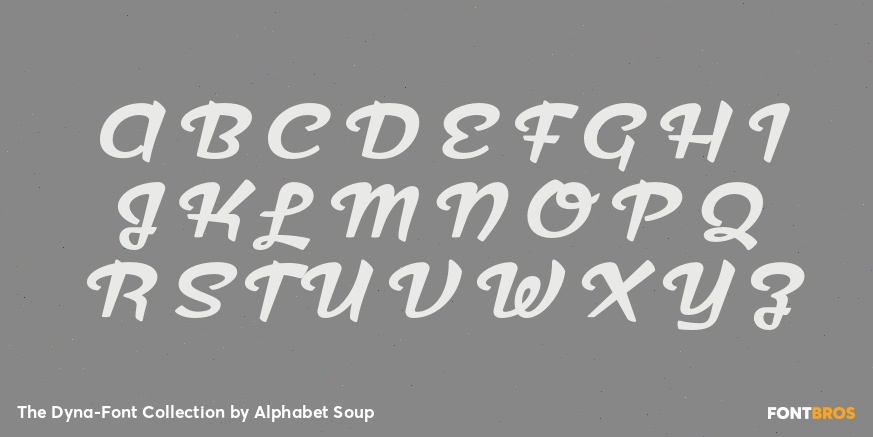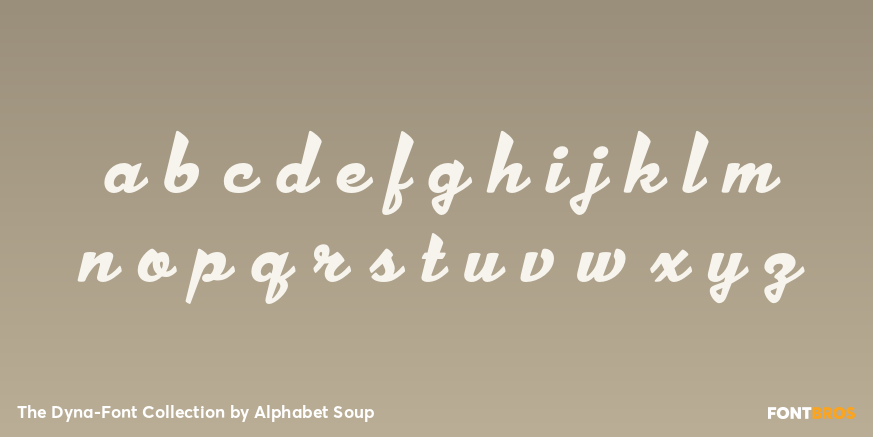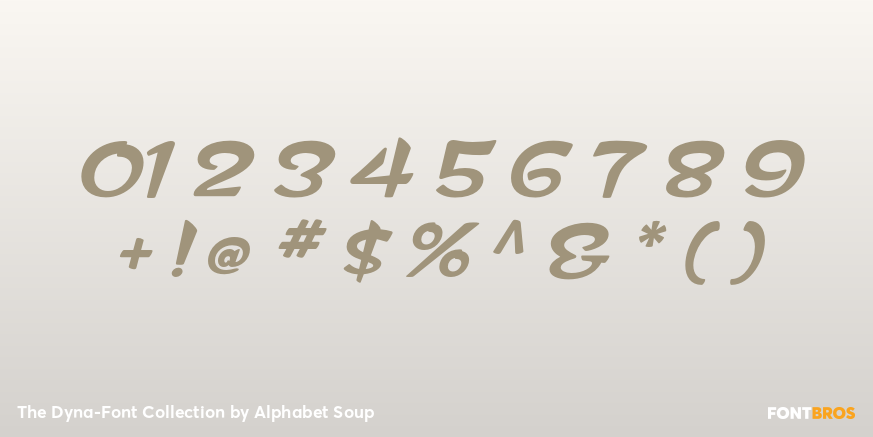
The Dyna-Font Collection
Font Bundle by Alphabet Soup
Dynascipt is a completely original, never before seen, bold script font, but it may be slightly reminiscent of various mid-century neon signage, and of sign writing, Speedball alphabets and even baseball scripts.
Dynatype is the upright, slightly more formal cousin of Dynascript. It shares many of the characteristics of it's slightly older relation, but is drawn entirely from scratch and has it's own unique character. To some it may be reminiscent of various mid-century neon signage, and of sign writing, Speedball alphabets and even baseball scripts.